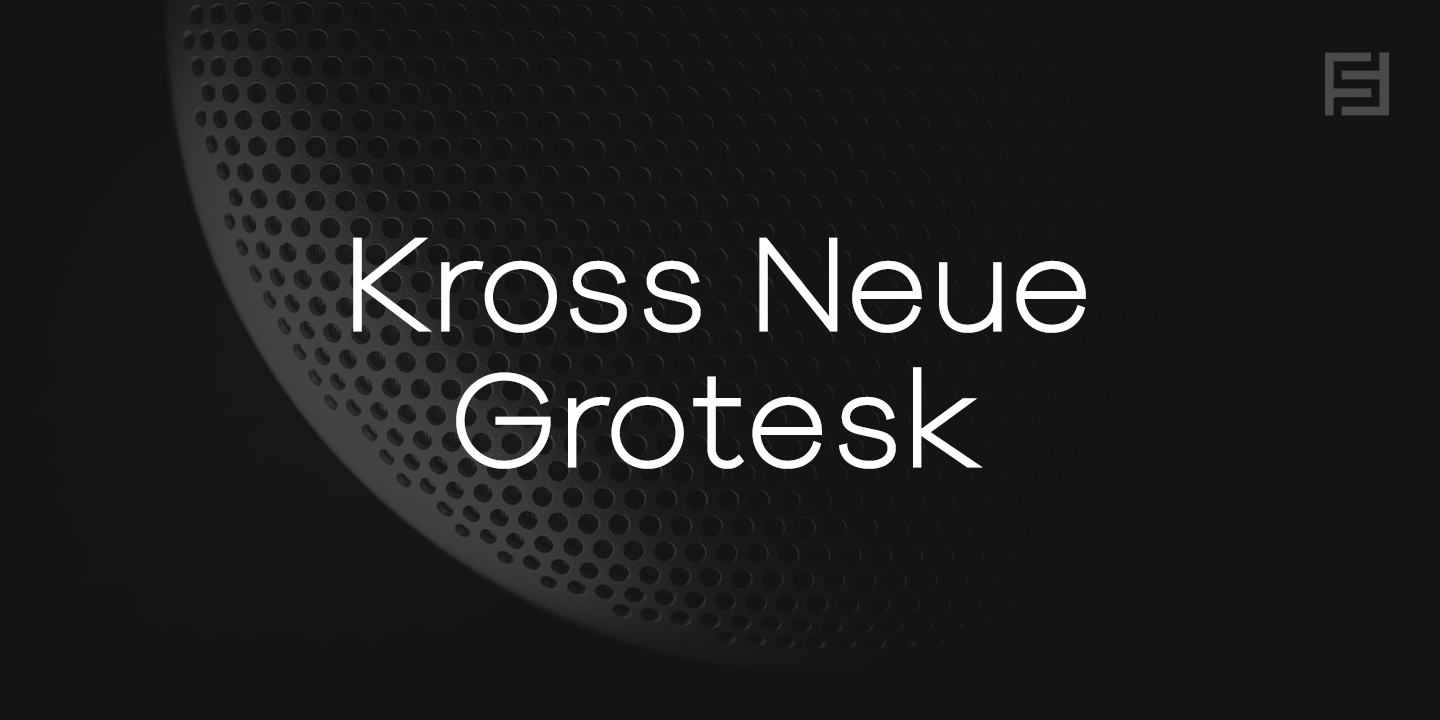
Kross Neue Grotesk Font is perfect for modern corporate branding, tech startup communications, minimalist web design, contemporary magazine layouts, architectural firm identities, industrial design portfolios, sleek product packaging, urban planning presentations, modern museum exhibitions, cutting-edge advertising campaigns, digital interface design, and progressive business communications. This refined typeface excels in applications requiring clean modernism and sophisticated simplicity, making it ideal for technology companies, design studios, architectural firms, and forward-thinking brands.
What makes Kross Neue Grotesk Font exciting is its perfect embodiment of contemporary minimalism and functional elegance. The font features clean, geometric letterforms with precise proportions and subtle character refinements that create exceptional clarity and modern sophistication. Its carefully balanced spacing and neutral character design ensure maximum readability across all applications while maintaining distinctive personality. The font's timeless aesthetic successfully combines Swiss design principles with contemporary digital requirements, offering designers a versatile tool for modern communication needs.
The Kross Neue Grotesk Font family typically includes comprehensive weight variations such as Thin, Light, Regular, Medium, Bold, and Black, along with their corresponding italic styles. Many collections also feature condensed and extended versions, providing designers with extensive typographic flexibility. Some premium packages include alternative character sets, stylistic alternates, and special ligatures that enhance the font's modern character and offer additional creative possibilities for sophisticated design projects.
Kross Neue Grotesk Font Free Download represents the epitome of modern typographic design and functional excellence. This remarkable typeface brings instant credibility and contemporary appeal to any project, making it particularly valuable for technology brands, design agencies, and organizations seeking to establish progressive brand identities. The font's versatile nature allows it to perform flawlessly in both large display applications and extensive text settings.
Designers appreciate Kross Neue Grotesk Font for its consistent performance and clean aesthetic across various media and applications. The font's technical excellence ensures perfect rendering in both digital and print environments, while its modern appeal adds instant sophistication to any design project. The comprehensive character set includes extended Latin characters, numerals, punctuation marks, and special symbols, making it suitable for international projects and diverse contemporary applications.
This exceptional typeface successfully combines functional minimalism with aesthetic refinement, offering designers a reliable tool for creating memorable and impactful communications that resonate with modern audiences seeking clean, professional design solutions and contemporary visual experiences.